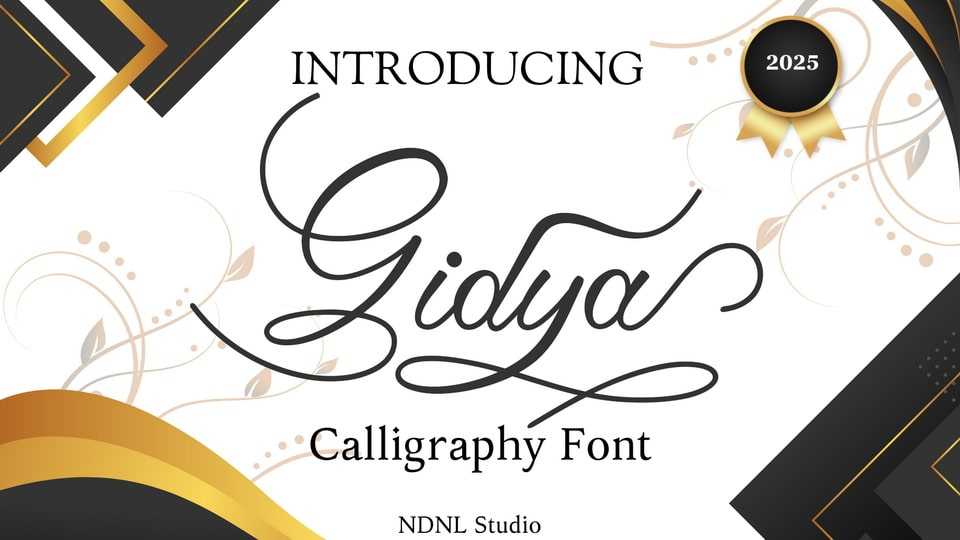
Download Gidya font, a calligraphy typeface designed with inspiration from the timeless beauty of handwritten lettering. Every curve and stroke carries an elegant rhythm.
Designer: NDNL Studio